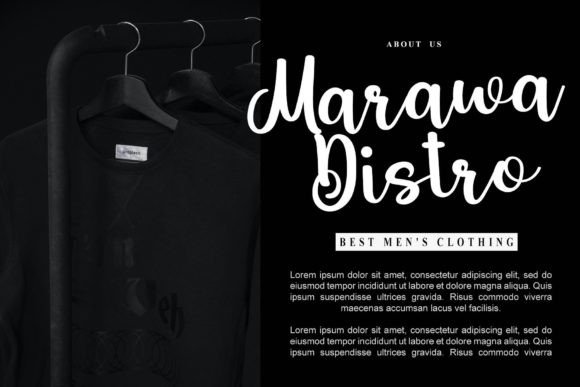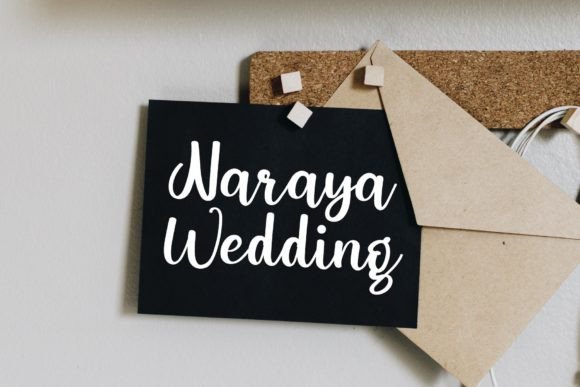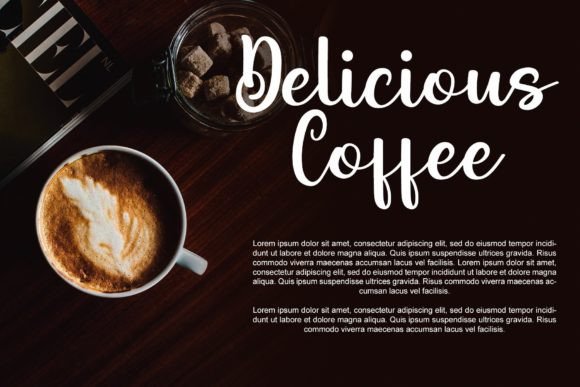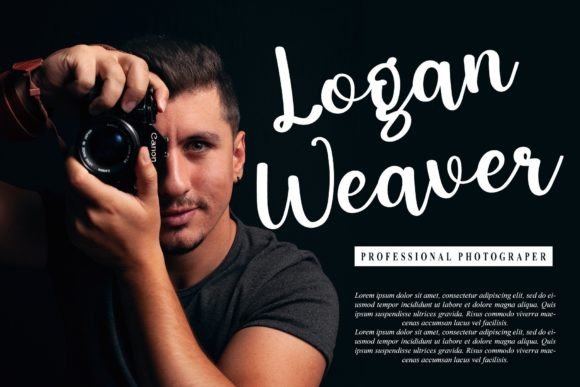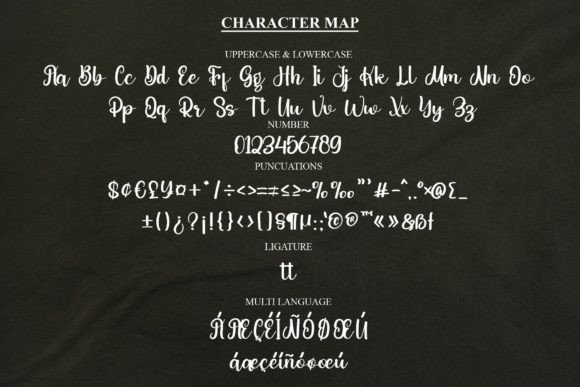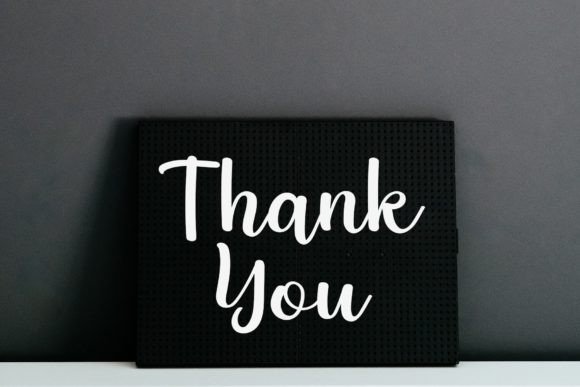
Daughter Font
About Daughter Font
“Daughter” sounds like a sweet, round, and flexible handwritten font designed to bring warmth, romance, and a sense of joy to creative projects. Fonts with these qualities are often versatile and can enhance various design contexts.
The description suggests that “Daughter” is not only sweet but also flexible, making it suitable for a range of creative applications. Fonts with a warm and romantic vibe can add a personal touch and emotional resonance to your designs.
Consider using “Daughter” for projects where you want to convey a sense of sweetness, romance, or joy. Whether it’s for invitations, cards, or other design elements, this font seems poised to turn your project ideas into real works of art.
Explore the warmth and flexibility of “Daughter” as you embark on creative endeavors, and let it bring a delightful touch to your designs. Fonts with a sweet and jolly demeanor can contribute to making your projects memorable and engaging.